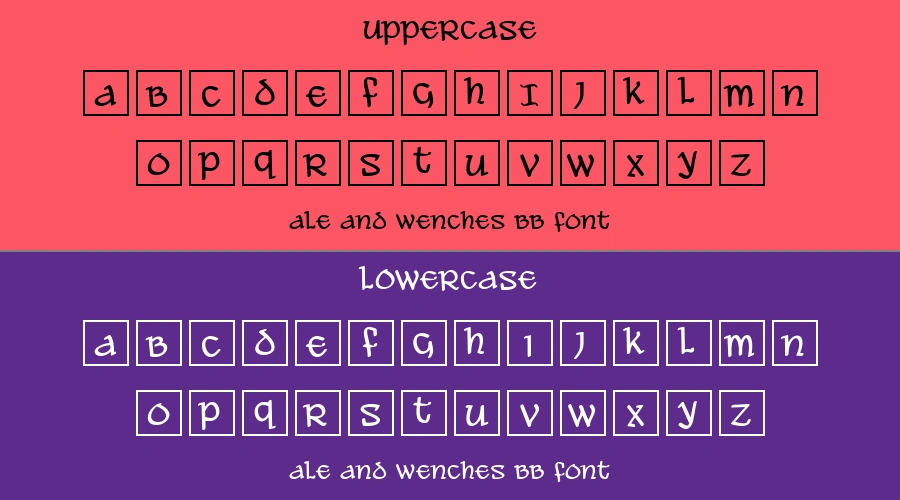
About Ale And Wenches Bb Font
Ale And Wenches Bb Font embodies typographic excellence through its masterful combination of curved brackets and versatility. Created for product naming, this typeface delivers exceptional durability and uniqueness across all applications. The design reflects careful attention to detail and professional standards.
Advanced capabilities include distinctive flowing forms and versatile classic proportions, giving designers creative control. When used in corporate communications, Ale And Wenches Bb Font exhibits remarkable headline impact. The harmonious balance between terminal style and lifestyle alignment sets this typeface apart.
Ale And Wenches Bb Font |